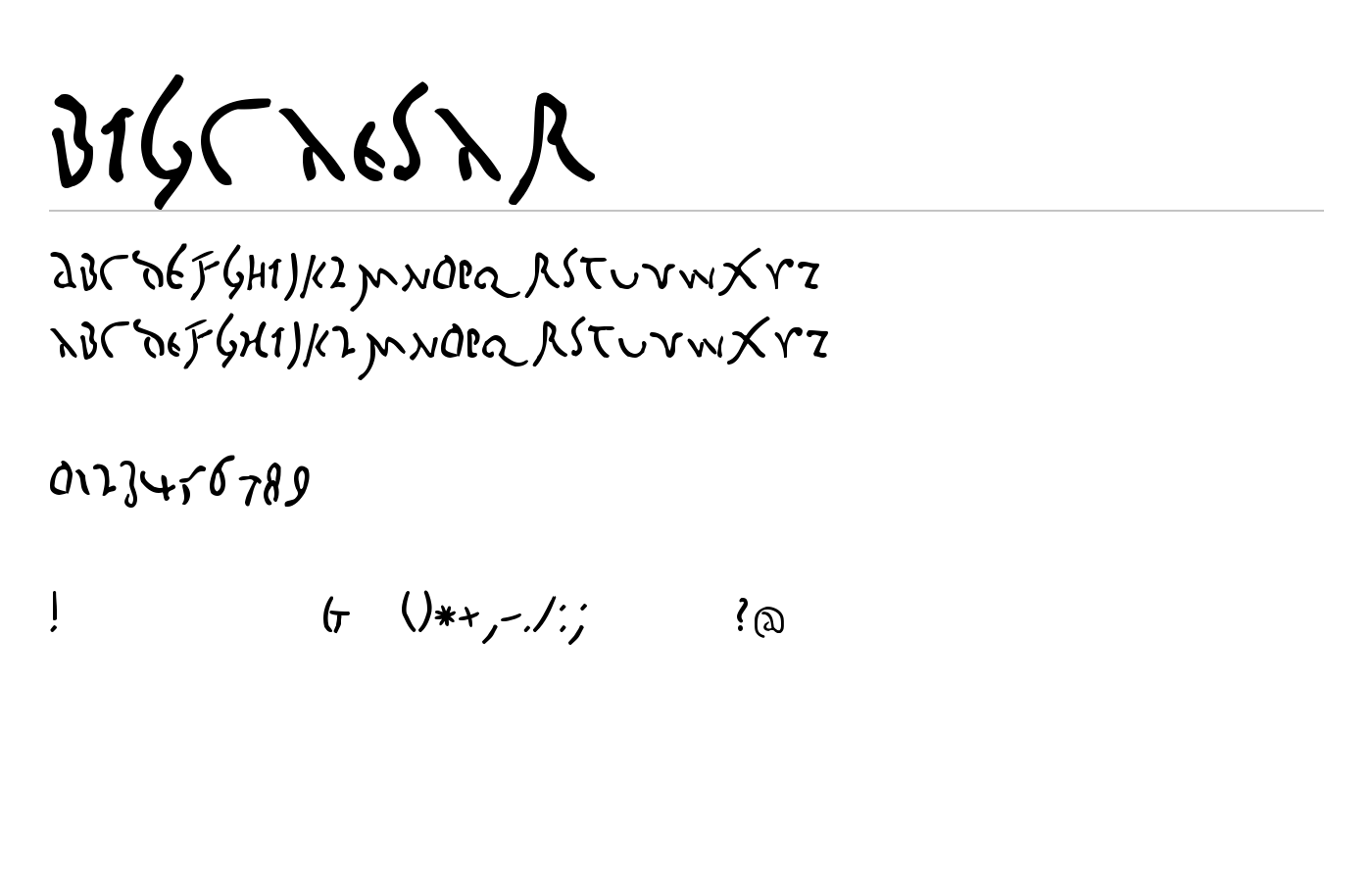
BigCaesar is a quirky, hand-drawn script font with a playful and artistic feel, featuring irregular, flowing strokes that give it a unique, almost calligraphic personality. Its casual, slightly messy style makes it ideal for creative projects needing a personal touch, such as logos, posters, or informal branding where a distinctive, handcrafted look is desired. This font adds character and charm rather than traditional readability, making it best suited for display rather than body text.
BigCaesar Font
About BigCaesar Font